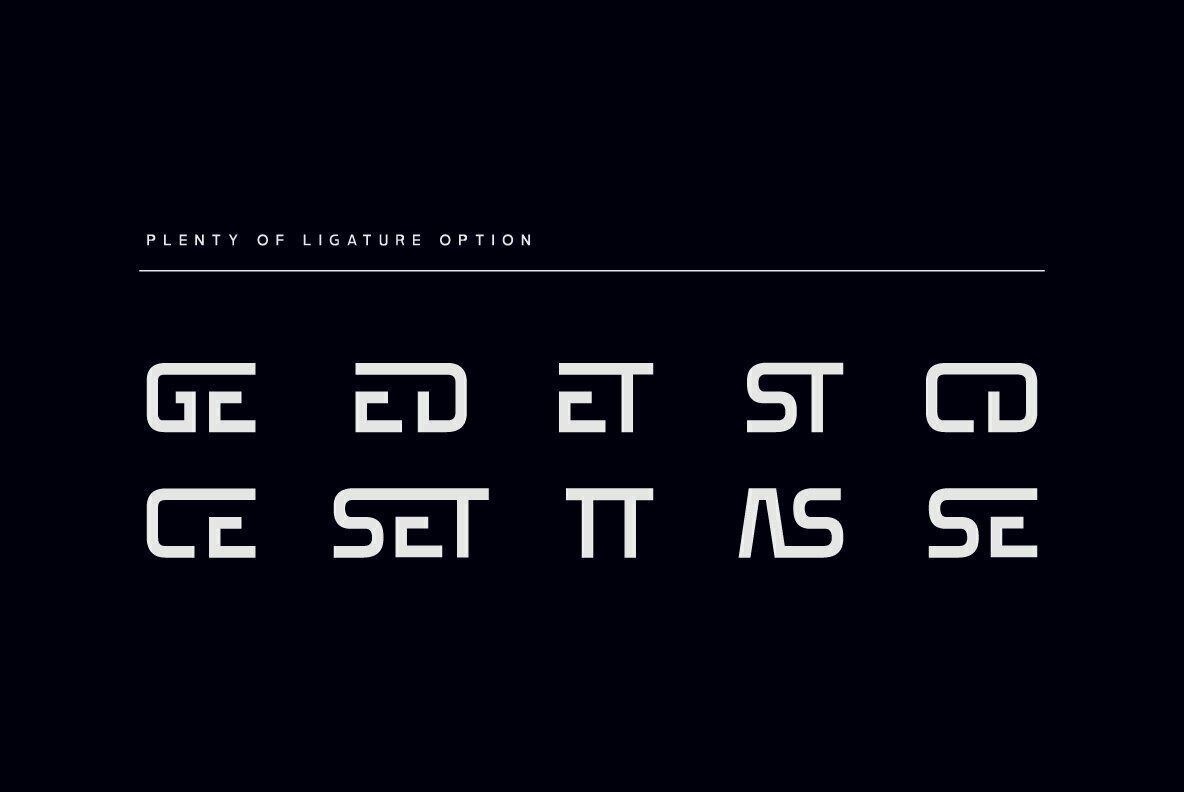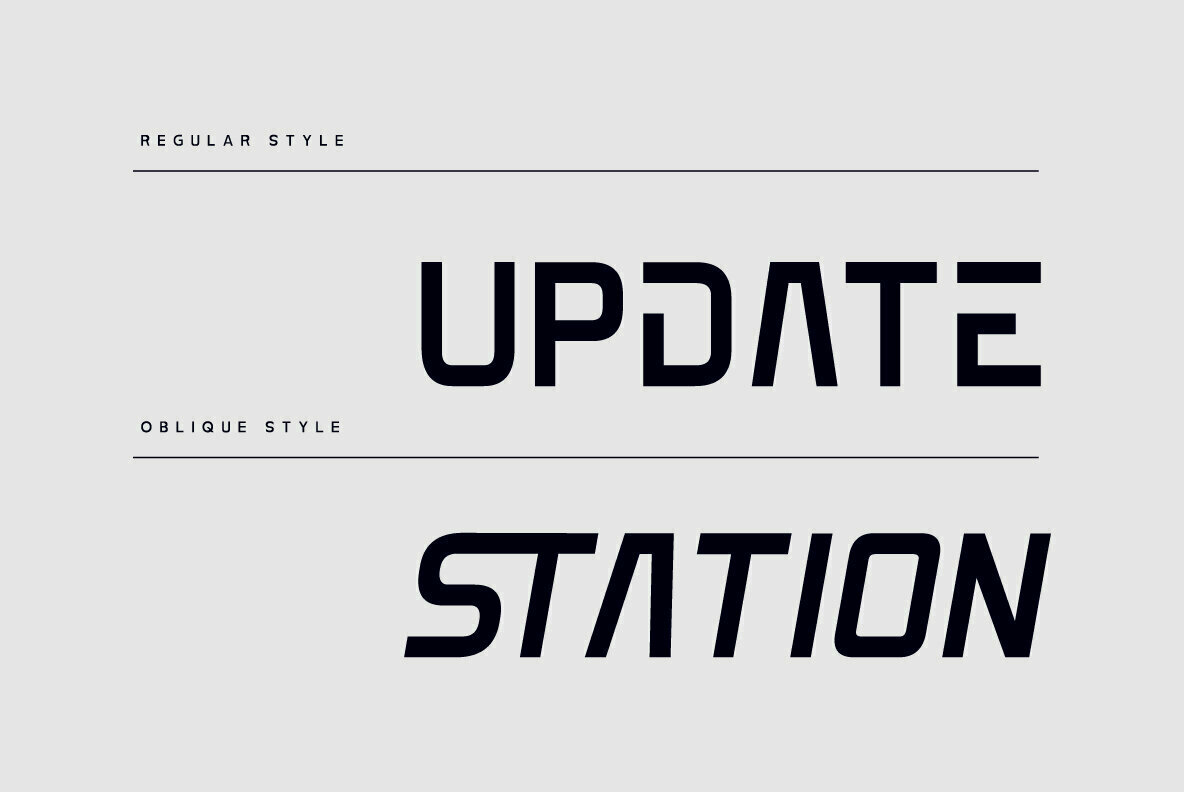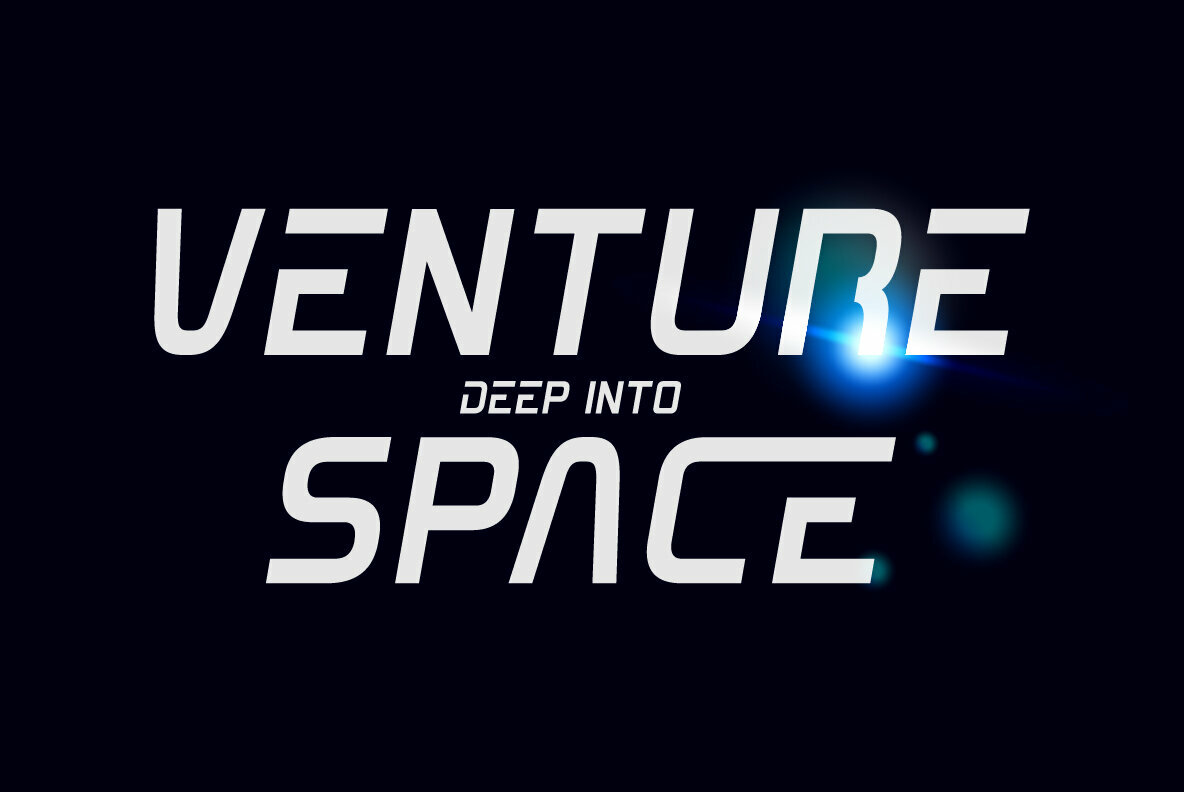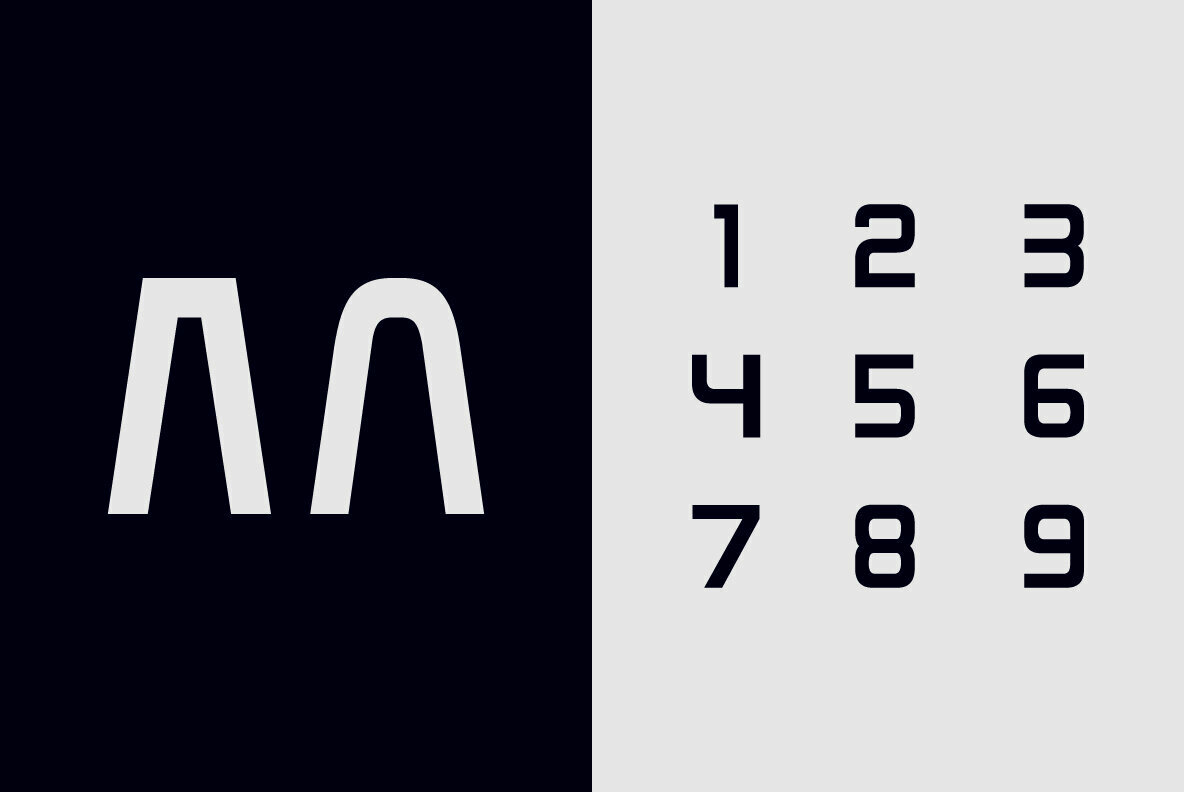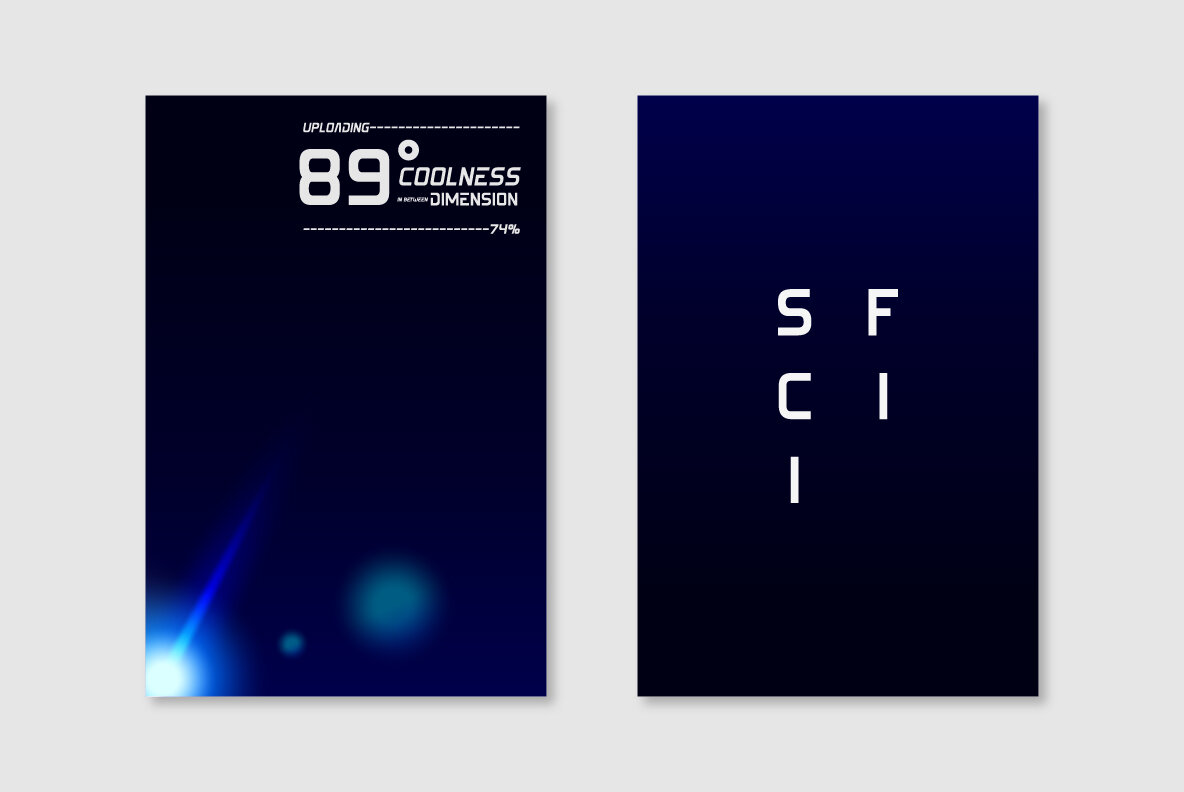
Edge Font
MBF Edge
MBF Edge Oblique
Moonbandit's Edge is a sleek, powerful typeface that encapsulates the essence of modern technology with a sci-fi twist. Designed to complement contemporary, futuristic projects, Edge combines strong, clean lines with a streamlined aesthetic, making it an ideal choice for your next innovation-driven design.Edge Typeface: Embrace Modern Futurism
OpenType Features